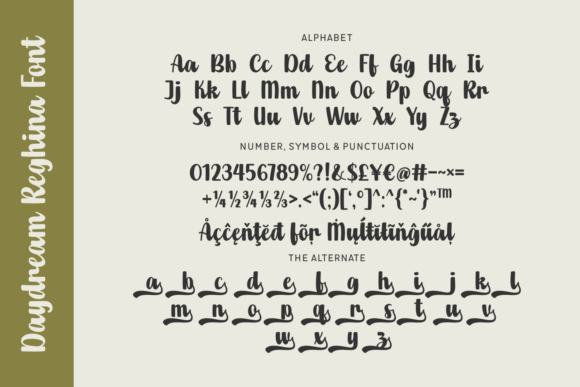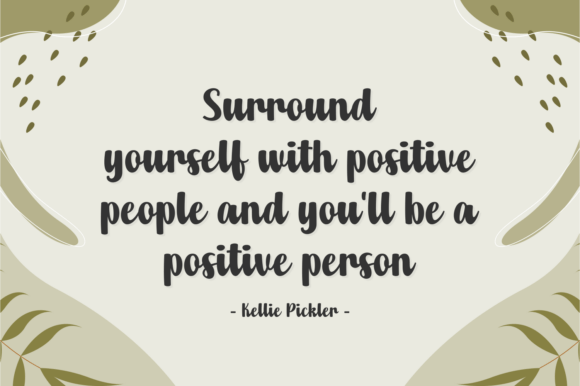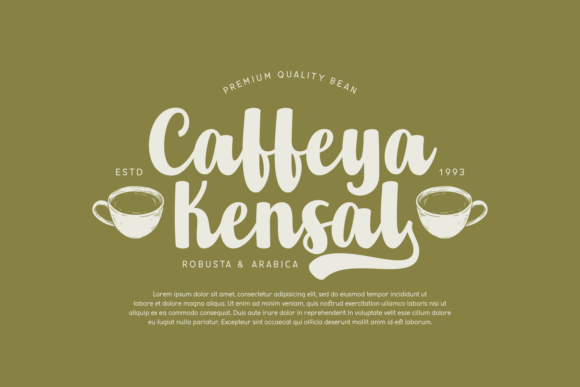
Introducing Daydream Reghina: The Ultimate Bold and Playful Script Font
Are you tired of using the same old fonts for your designs? Look no further! Daydream Reghina is a bold and playful script font that is sure to take your creations to the next level. With its charming hand-lettered feel, smooth curves, and thick strokes, this font is perfect for designers and crafters who want to add a touch of personality and warmth to their work.
What Makes Daydream Reghina Special?
Daydream Reghina is more than just a font – it’s an experience. Its bold and playful nature makes it perfect for creating eye-catching designs that exude confidence and creativity. The smooth curves and thick strokes of this font give it a unique and stylish vibe that is sure to capture the attention of your audience. Whether you’re working on branding, product packaging, posters, social media posts, or more, Daydream Reghina is the perfect choice.
The Benefits of Using Daydream Reghina
So, why choose Daydream Reghina over other fonts? Here are just a few benefits of using this amazing script font:
- Personality and Warmth: Daydream Reghina brings a touch of personality and warmth to your designs, making them more relatable and engaging.
- Confidence and Creativity: This font exudes confidence and creativity, making it perfect for designers and crafters who want to make a statement.
- Approachable and Stylish: Daydream Reghina maintains an approachable and stylish vibe, making it perfect for a wide range of design applications.
- Versatility: This font is perfect for a variety of design projects, from branding and product packaging to posters and social media posts.
How to Use Daydream Reghina in Your Designs
- Branding: Use Daydream Reghina as a logo font or as a font for your tagline to add a touch of personality and warmth to your brand.
- Product Packaging: Add Daydream Reghina to your product packaging to make it stand out on store shelves.
- Posters: Use Daydream Reghina as a headline font or as a body font to add a touch of creativity and confidence to your posters.
- Social Media Posts: Use Daydream Reghina to add a touch of personality and style to your social media posts.
Why Designers and Crafters Love Daydream Reghina
Designers and crafters love Daydream Reghina for many reasons. Here are just a few:
- Unique and Stylish: Daydream Reghina is a unique and stylish font that adds a touch of personality and warmth to any design.
- Easy to Read: This font is easy to read, even at small sizes, making it perfect for a wide range of design applications.
- Customizable: Daydream Reghina is highly customizable, making it easy to pair with other fonts and design elements.
In conclusion, Daydream Reghina is a bold and playful script font that is perfect for designers and crafters who want to add a touch of personality and warmth to their designs. With its smooth curves and thick strokes, this font exudes confidence and creativity while maintaining an approachable and stylish vibe. Whether you’re working on branding, product packaging, posters, social media posts, or more, Daydream Reghina is the perfect choice. So why wait? Try Daydream Reghina today and take your designs to the next level!